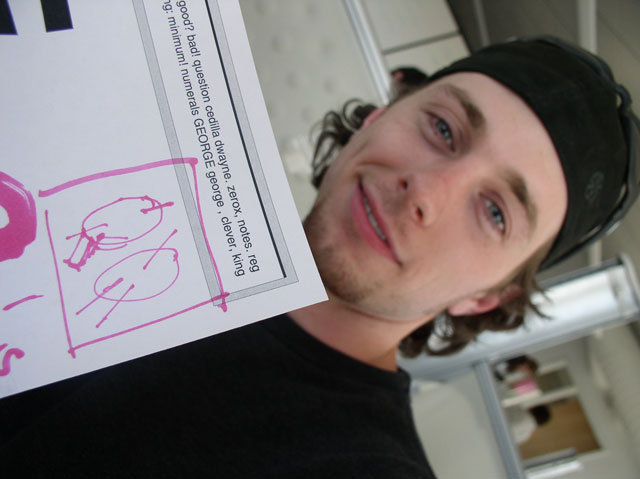
![]() day 1 : day 2 : day 3 : day 4 : day 5 : day 6 : day 7 : final result ![]() Revisions galore! After compiling another round of revisions, the students gathered around all the characters to decide what forms must be grouped and unified. For example, all the bottom left sides of the characters must be flat (the angles were all over the board). C,G,O, and zero must have the same curvature. All top left serif must align and correspond to the main axis of the typeface. The list was long . . . much work was done to refine. The students then broke off into smaller groups to work on refining like forms. During this phase the students were also thinking about the final application and name of the typeface. Names that surfaced as possibilities were Neat Meat, Stencizzle, Meat Shop, Polygamy, Quite ok, and Chopshop. Chopshop was the one chosen so that is the name of the typeface. The students felt that Chopshop reflected the process, the nature, and the environment in which it was created in. Next the final application had to be decided. Students discussed that the application should reference the process, reinterpretation of interpretations and interpretations of reinterpretations (and so forth). Ideas in regard to the form were T-shirts and salvage clothes (to be silkscreened), an installation at a local cultural center, stenciling messages around the city, and less permanent vandalism such as spraying on grass, dirt, etc. Moral issues with vandalism surfaced and we decided as a group that government would not be pleased with spraying the city with the new baby Chopshop. Ultimately, the students decided to cut the type out of wood large format - approx 8" x 10" for each letter - and take photos of the city through the cut type. Off to the woodshop we go. ![]()
![]() 8 comments so far: read comments ![]() ![]() bas -- Friday, April 11 2003, 03:45 pm you fontographer lovers, I still have the feeling that this stencil typeface is not so much stencil like, and quite hard to stencil. I think forms like the capital T are much more 'stencil like' than 'V', 'D', 'N' or 'R'(!). ps. Don't forget about the 'S'. dirk uhlenbrock -- Friday, April 11 2003, 04:09 pm hi - love the "K". the "M" is a bit to weird, the "stairway- look" doesn't fit very well. sami -- Friday, April 11 2003, 04:23 pm Man, what a besserwisser that Bas is... yes, you're right, the letters needs the chopping much more, and at the moment we are just doing it. In the early stage we decided to first tune the basic elements; bows, arms, straight lines and so on - to see what are really the places that needs cutting on first place. So yes, now many counter forms still were extremely complex (A, B, R...). Wait for the picture from tomorrow (day 06), the students are really going for it. chester -- Friday, April 11 2003, 08:39 pm I concur with Bas, that the stencil "functionality" should be more than just a matter of blocking strokes at the final stage. Since you set out to make a stencil font, those construction details whould have been design details. _ You have created a truly beautiful typeface, and I'd love to see it as a non-stencil version as well. (And I'd love to see the stencil version have "stencil funtionality" that is as sexy as the letterforms. _ Best, c sami -- Friday, April 11 2003, 10:59 pm Chester, thanks for the critics. I agree; the concrete application should define how the elements are behaving, that should define how the type looks. But, during the workshop things change quite rapidly finally today (Friday) we agreed on the way how to apply font. It may have been better to decide this earlier, but it was also hard to come up with a concrete plan. So now we are in the practical stage: the group just cut the word 'CHOPSHOP' out of wood and we saw the difficulty of craftmanship...:) bas -- Saturday, April 12 2003, 12:50 am Also think about the spacing in between two letters. The space which is in between the two different seperated forms of the 'T', should be equal to the space in between two 'T's next to each other. Now they look extremely close to eachother. bas -- Saturday, April 12 2003, 12:52 am Oh yeah, I am too late with my comments probably, everybody is already struggling around with the 3d material. Time, time, time, you could need another week.... ed -- Wednesday, April 16 2003, 04:25 pm What can i say about this workshop? I'm not expert like you are. But i guess dealing with font means dealing with words. And words need meaning. Why dont you cooperate for demonstration purposes with people that deal with speech? ![]()